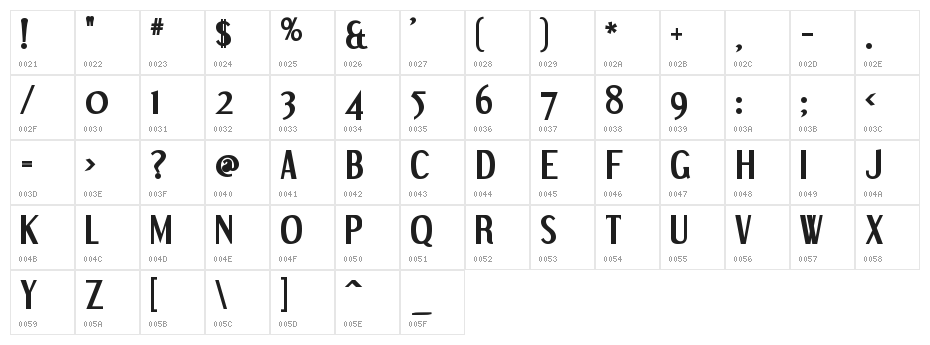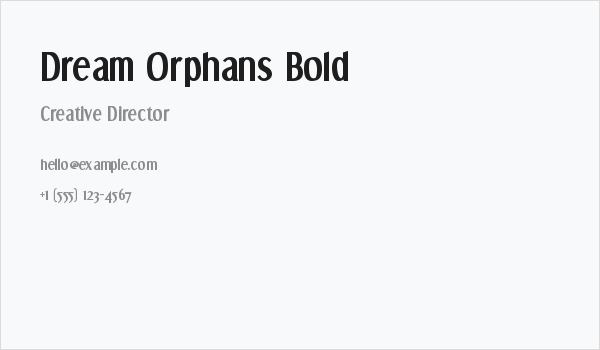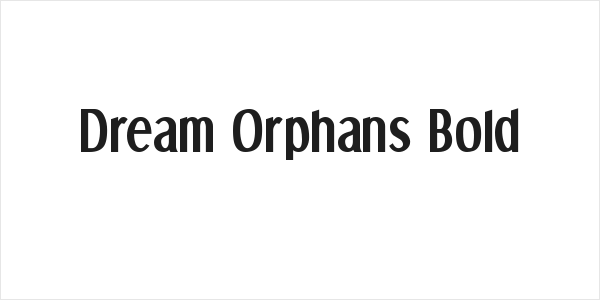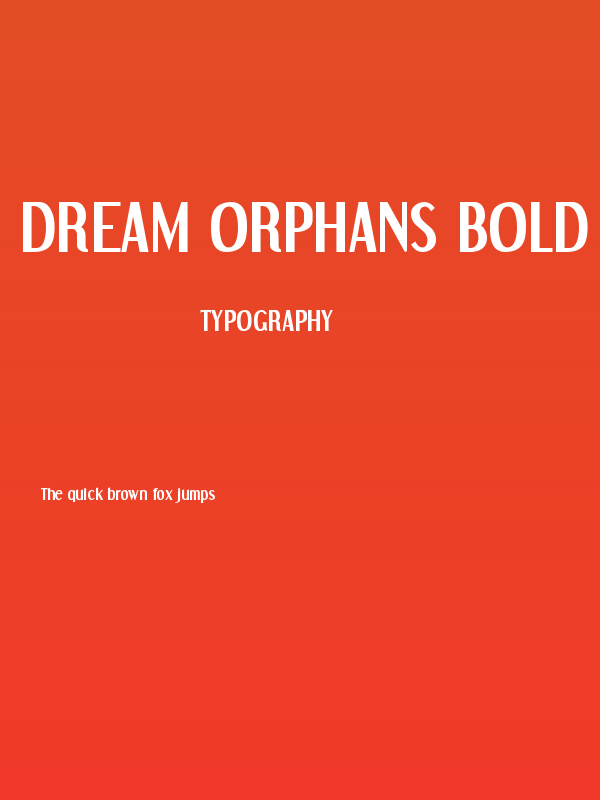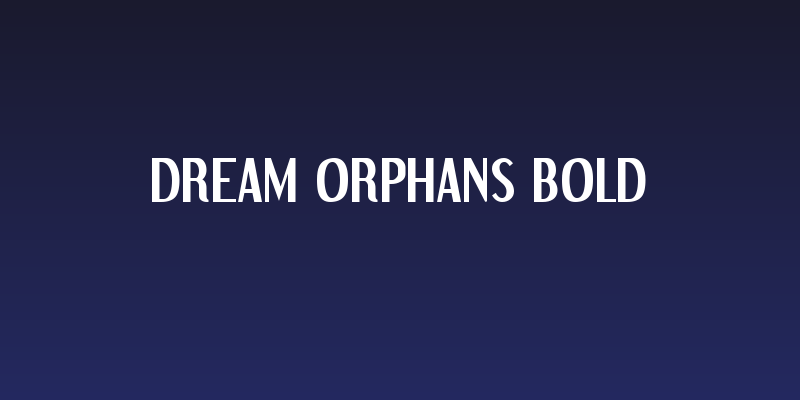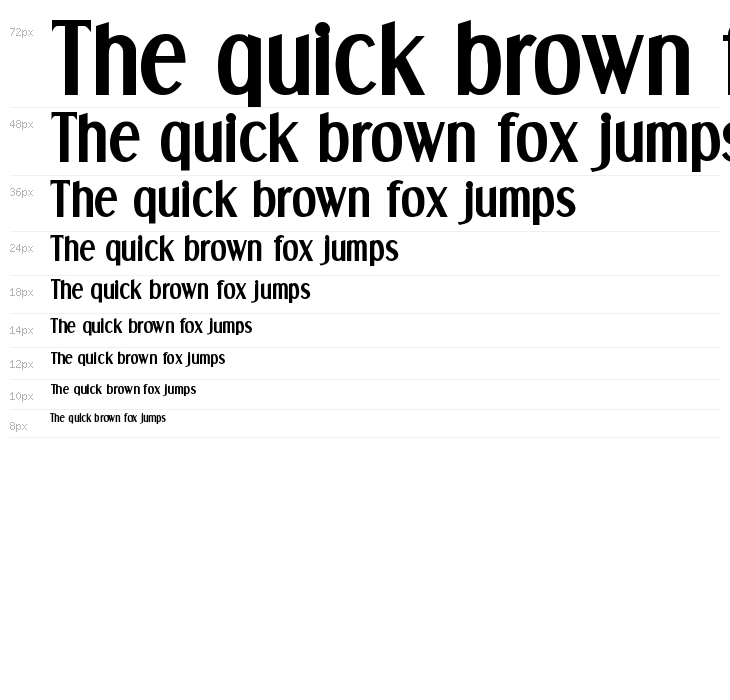
Dream Orphans Bold Font
Dream Orphans Bold Description
This font exhibits a bold and assertive style with clean, sharp lines and a modern aesthetic. The uppercase letters are tall and commanding, while the lowercase letters maintain a consistent height, ensuring readability. The numbers are well-proportioned, and the special characters are distinct, adding versatility to the font. The overall design is sleek and contemporary, making it suitable for a variety of applications. The font's bold weight and normal width provide a strong presence, while the medium contrast in stroke thickness adds to its legibility and visual appeal.
| Proposed Projects | This font is perfect for branding projects, headlines, posters, and any design that requires a strong, modern typeface. |